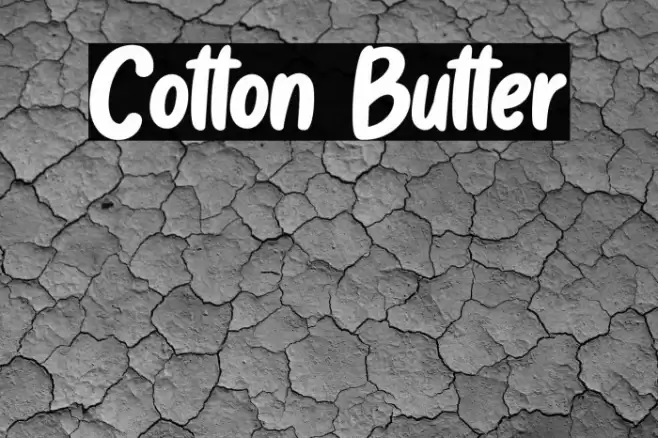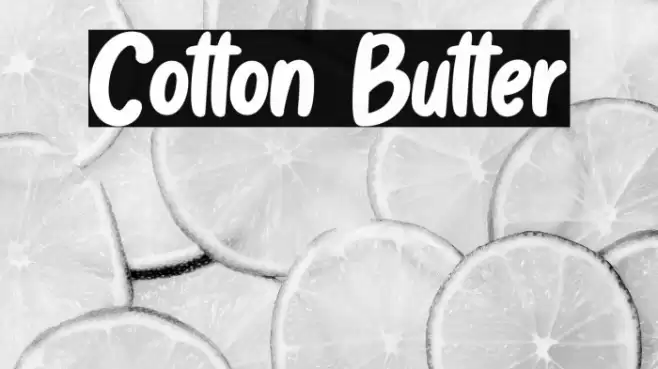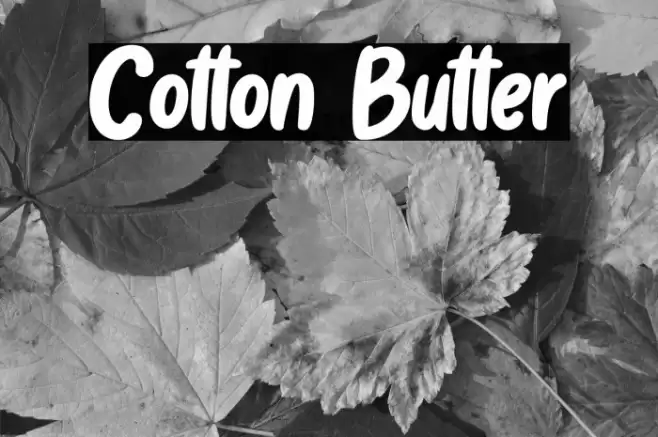
Cotton Butter Font
Cotton Butter Description
This playful and bold font features a handwritten style with smooth, rounded edges, giving it a friendly and approachable appearance. The characters are slightly slanted, adding a dynamic and casual feel. The uppercase letters are prominent and well-defined, while the lowercase letters maintain a consistent flow, enhancing readability. The numbers and special characters are designed to match the overall aesthetic, ensuring a cohesive look across all text. This font exudes a sense of warmth and creativity, making it ideal for projects that require a personal touch.
A bold, handwritten font with smooth, rounded edges and a playful style from Cartoon fonts.
- Proposed Projects: Ideal for greeting cards, children's books, playful branding, and social media graphics.
- Overall Style: Playful
- Use Case: Logos, Headlines, Posters